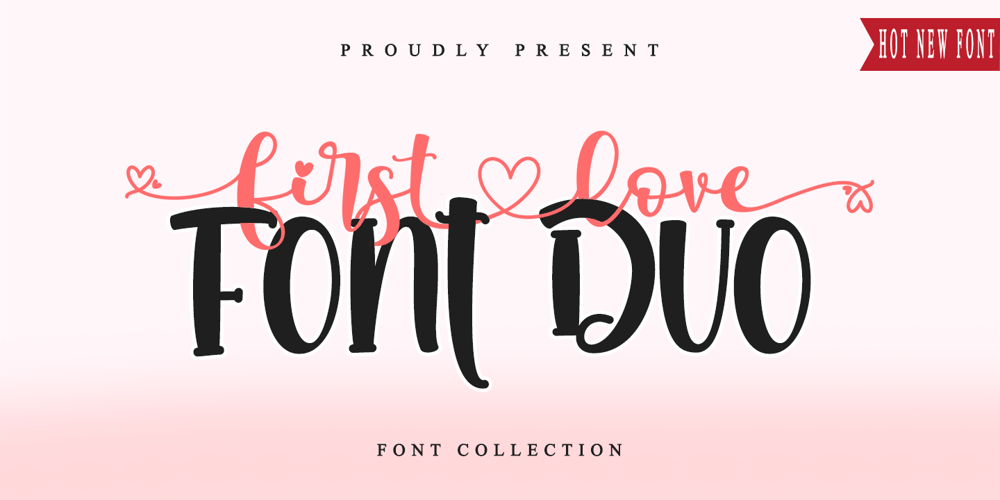
First love FD Font Family was designed by Thomas Aradea and published by Letterara. First love FD contains 2 styles and family package options. First Love Font Duo is the perfect calligraphy font: Elegant, Sweet, innocent, light, and charming, this one-of-a-kind typeface will add a unique charm to any design project! The connected heart feature makes this font even more charming.This font is PUA encoded which means you can access all of the glyphs Alternate, Titling and Swashes with ease! It features a varying baseline, gorgeous glyphs, and stunning alternates.